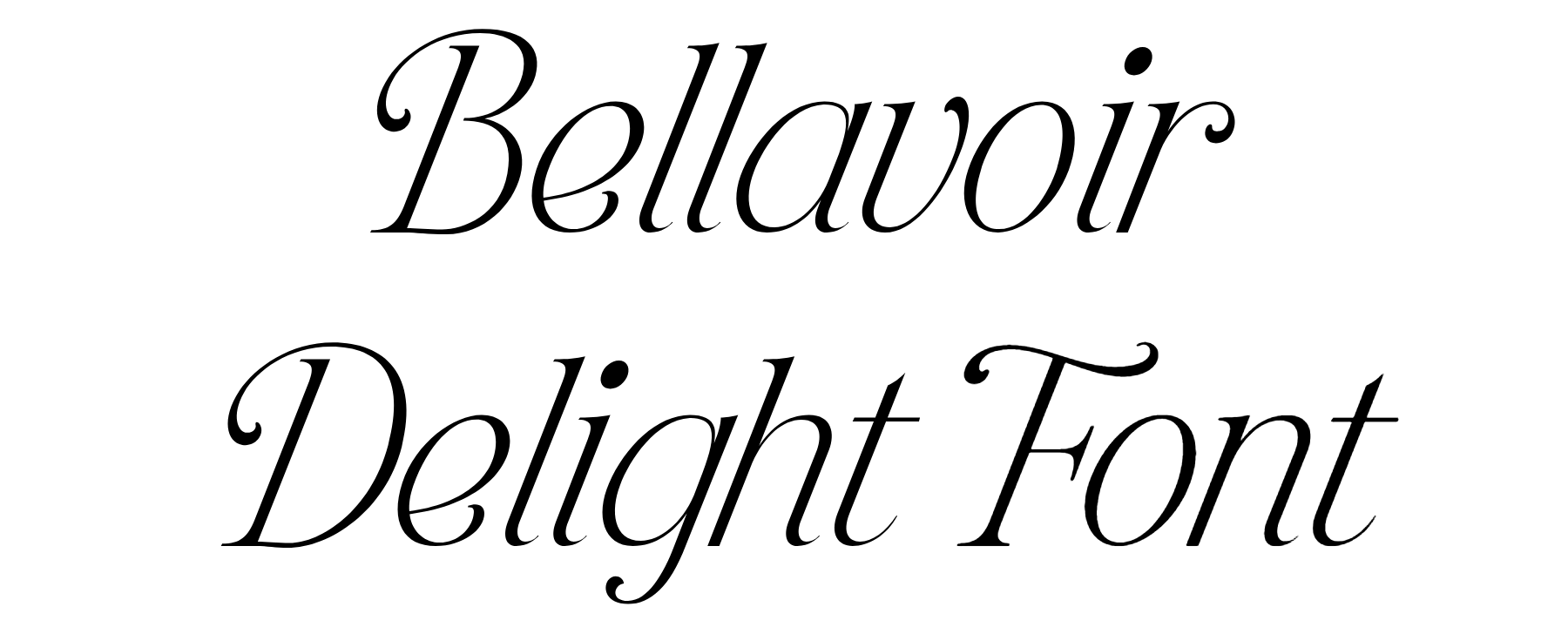
Bellavoir Delight
Bellavoir Delight is a serif font designed by Mans Greback and published by Mans Greback AB (2024). Small strokes at the ends of its letters (the serifs) give it a classic, trustworthy look. It's a free download, and you can try it with your own text in the preview above first.
- OpenType features: Ligatures (including optional ones), 7 stylistic sets, old-style numbers and fractions
What You Can Type With Bellavoir Delight
With complete upper and lowercase letters and all ten digits, Bellavoir Delight is ready for real wording, not just a single headline. Common punctuation such as &, !, ? and @ is included as well. It also has the accented letters you need for Spanish, French, German, Portuguese and Italian.
Where Bellavoir Delight Works Best
Bellavoir Delight is a natural fit for book covers, magazine headlines and classic branding. Serif fonts shine in headlines and printed text. For long paragraphs on phones, check that it still reads well at small sizes.